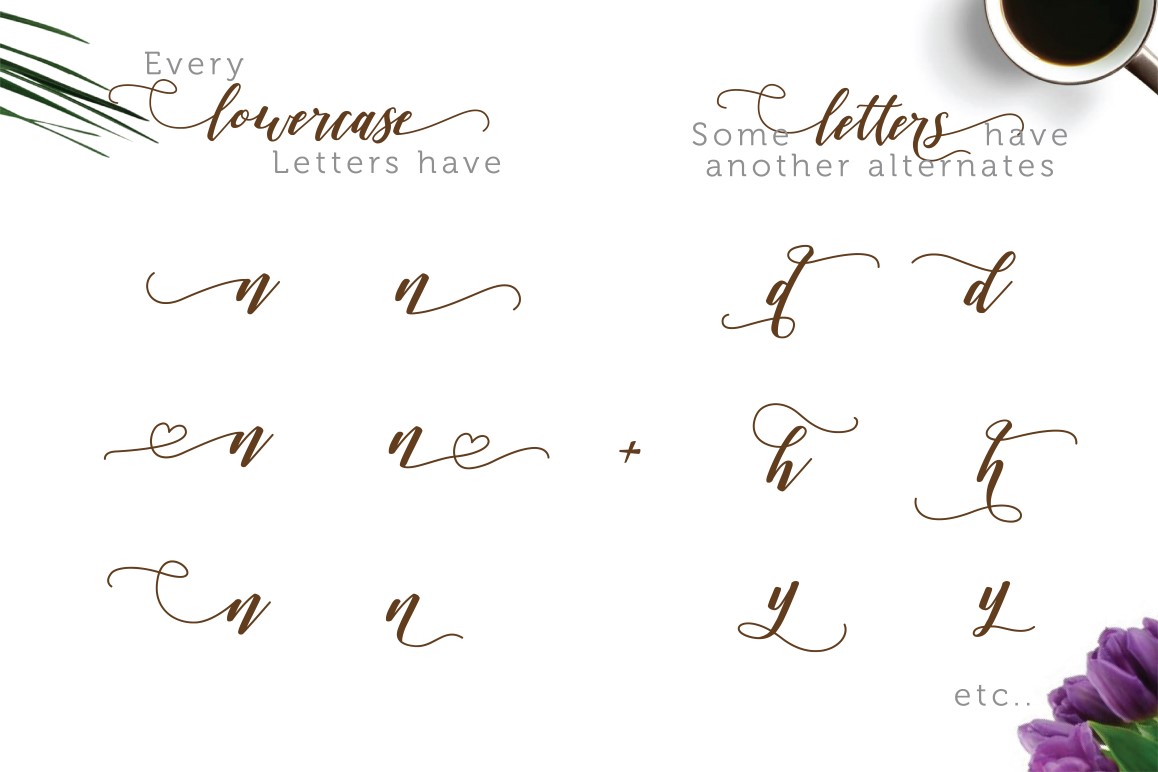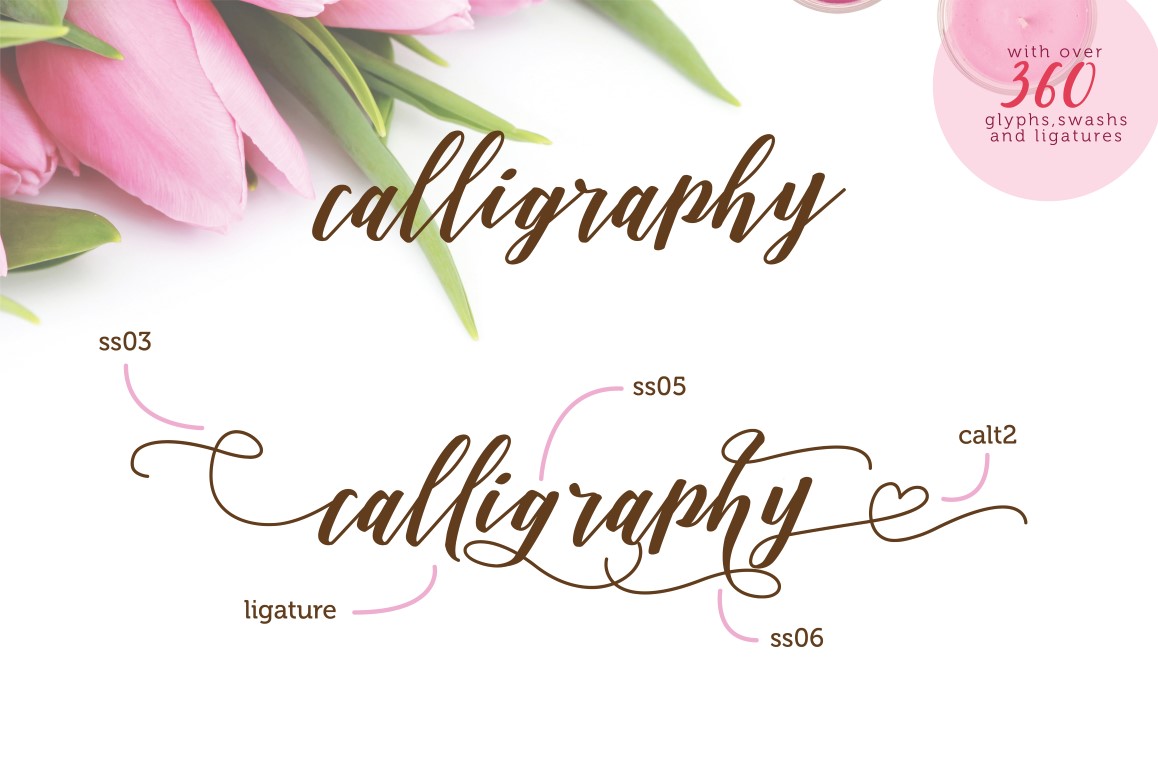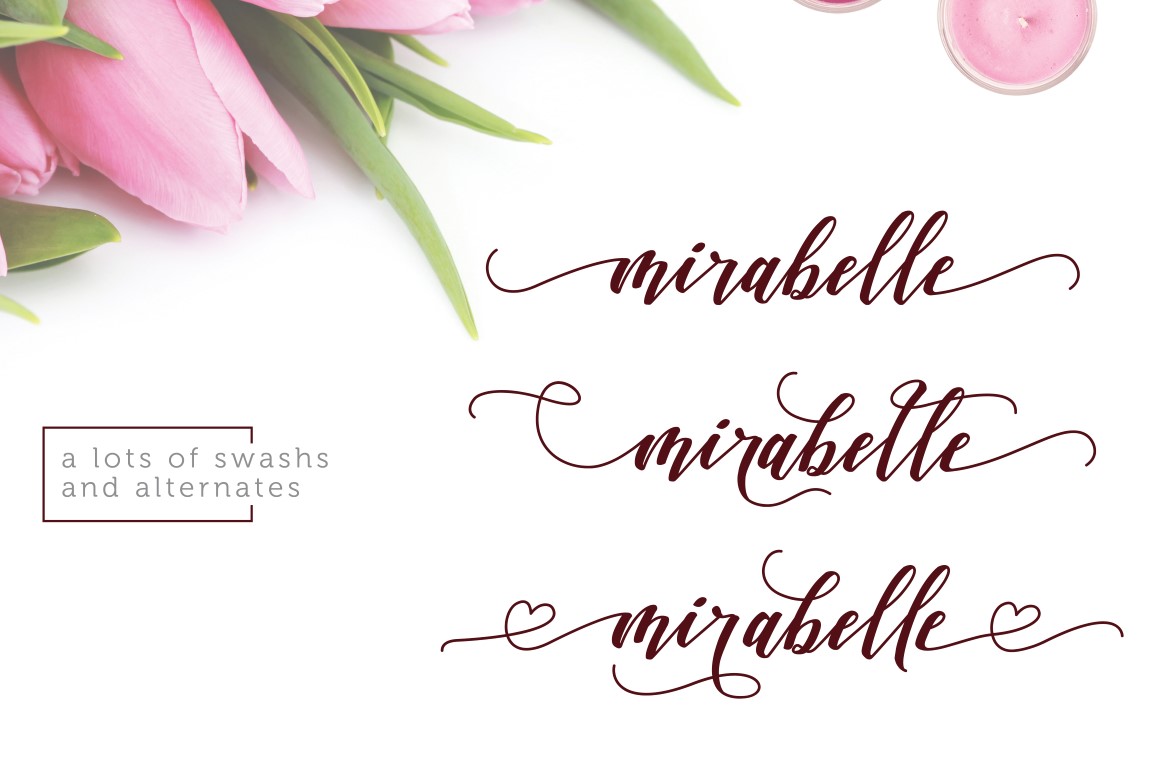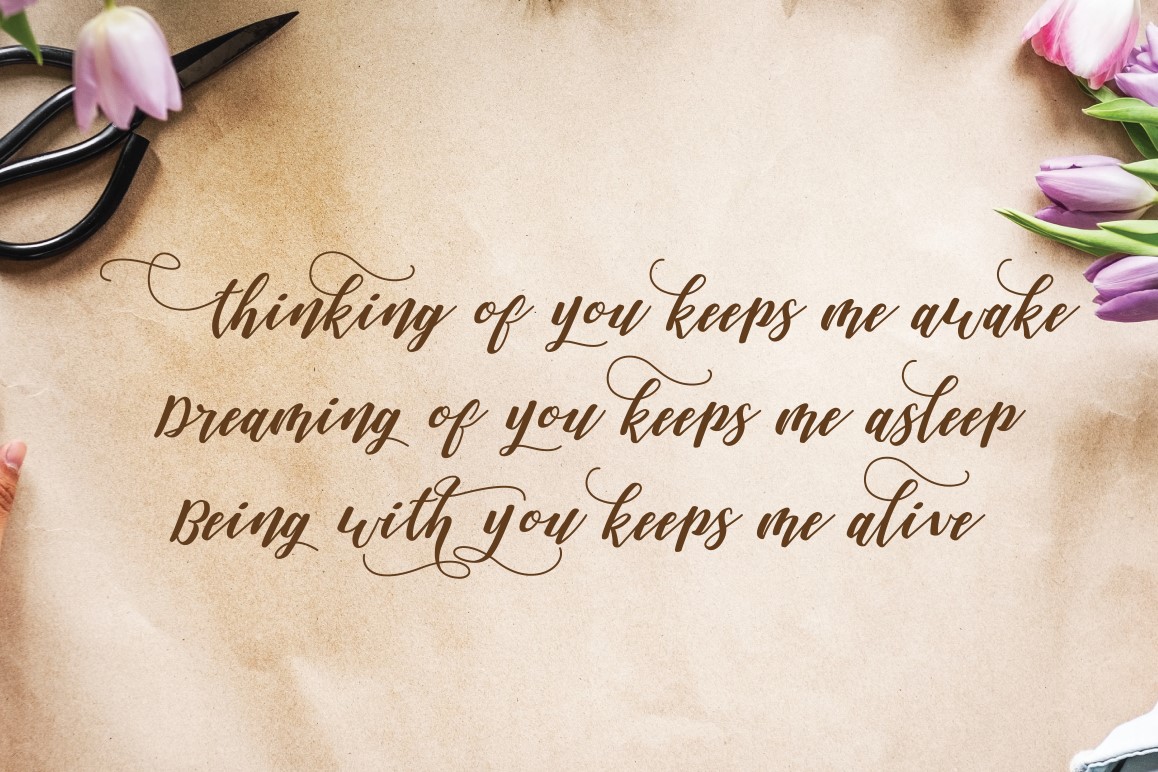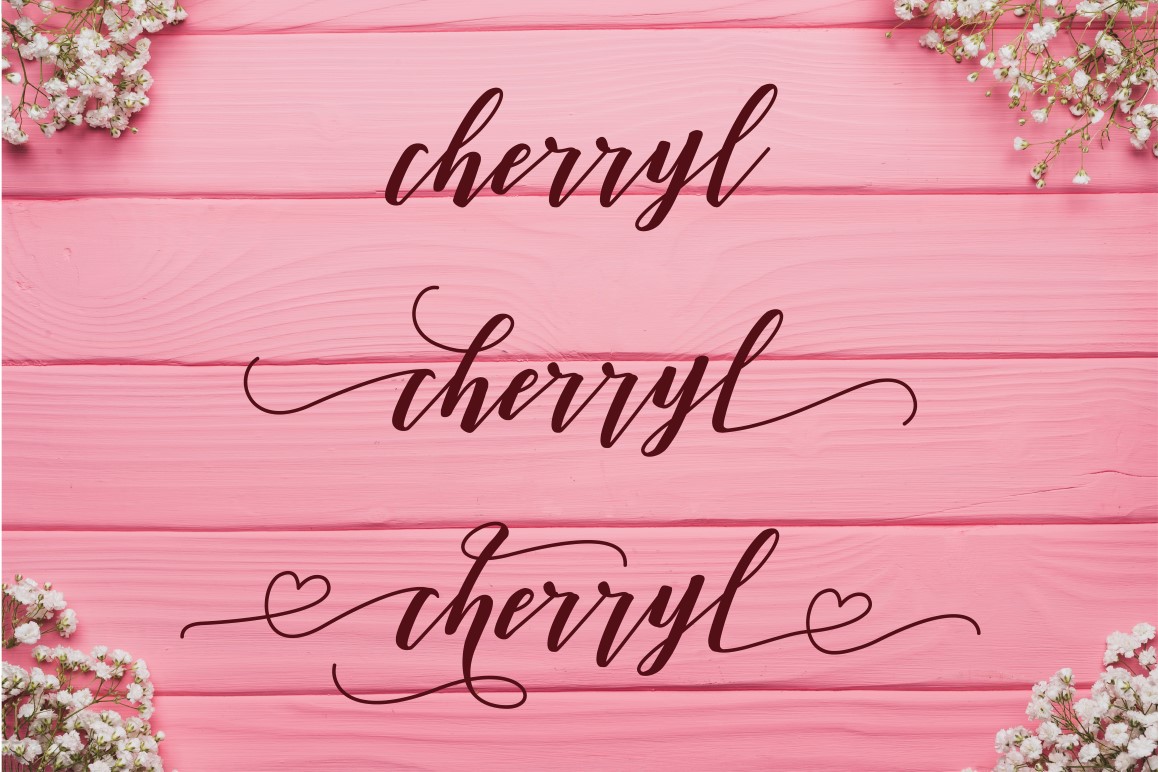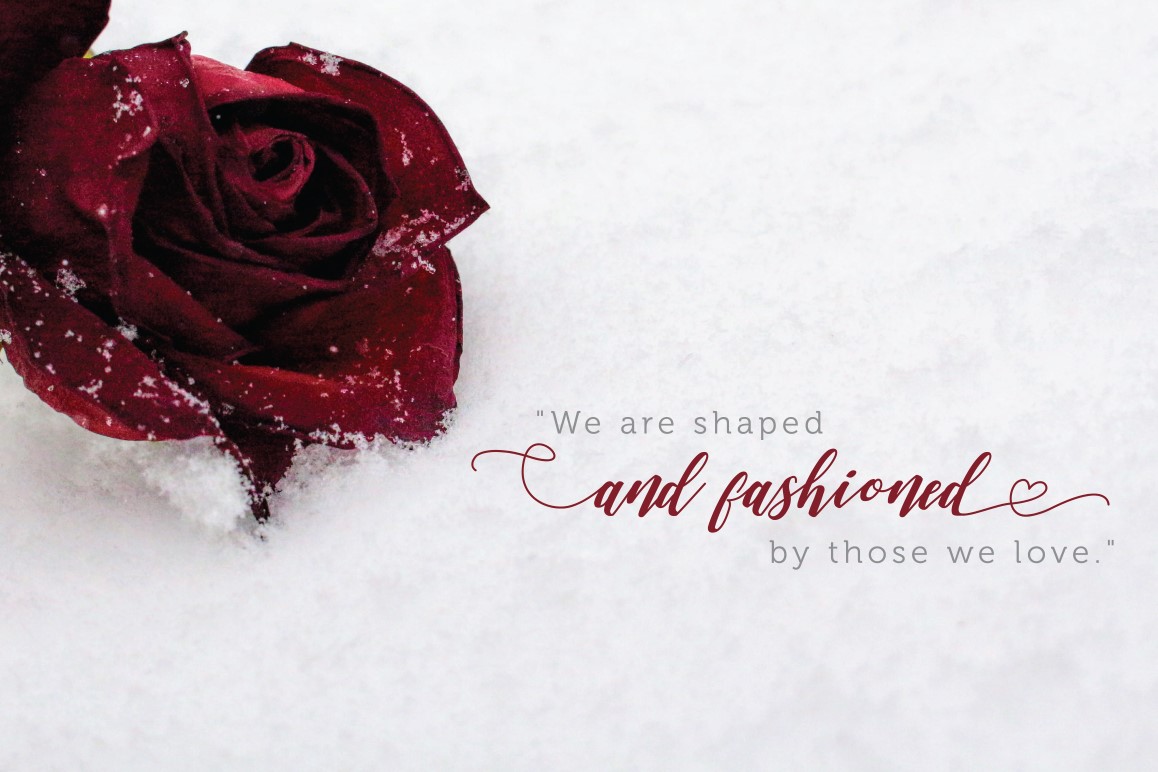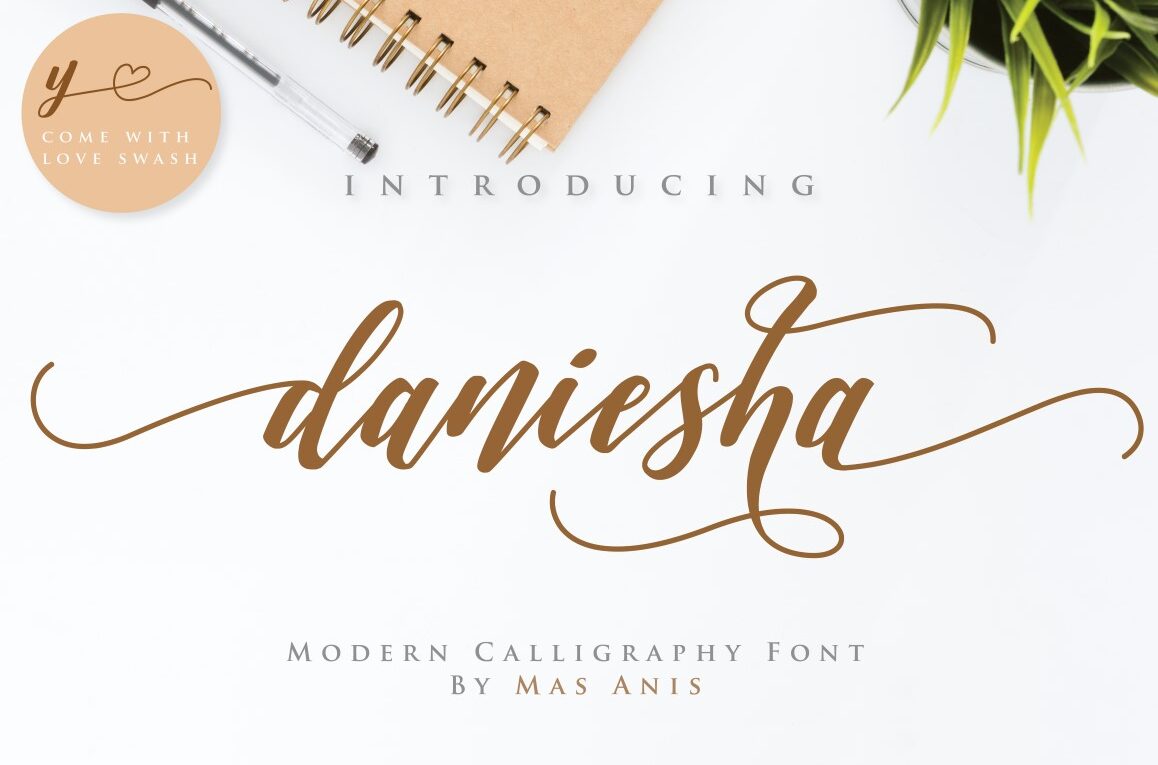
Daniesha Font: Elevate Your Designs with Elegant Calligraphy
Are you a designer or crafter looking for a beautiful and elegant font to add a touch of sophistication to your projects? Look no further than the Daniesha Font. This stunning calligraphy font is perfect for special occasion typesetting, or to be used as a headline to your designs. With its dancing quality and numerous character options, Daniesha is sure to become a favorite in your font collection.
What is Daniesha Font?
Daniesha is a beautiful calligraphy font that exudes elegance and sophistication. Its flowing lines and curves make it perfect for adding a touch of luxury to any design project. Whether you’re working on a wedding invitation, a branding project, or a craft tutorial, Daniesha is the perfect choice. This font is designed to give your text a sense of movement and fluidity, making it perfect for designs that require a touch of whimsy and romance.
Key Features of Daniesha Font
- Dancing Quality: Daniesha has a unique dancing quality that gives your text a sense of movement and fluidity. This makes it perfect for designs that require a touch of whimsy and romance.
- Multiple Character Options: Daniesha offers many different character options, making it easy to customize your text to fit your design needs.
- Calligraphy Style: Daniesha is a true calligraphy font, with flowing lines and curves that mimic the look of hand-written text.
- Perfect for Special Occasions: Daniesha is perfect for special occasion typesetting, including weddings, anniversaries, and other celebrations.
Uses for Daniesha Font
Daniesha is a versatile font that can be used in a variety of design projects. Here are just a few ideas to get you started:
- Wedding Invitations: Daniesha is perfect for wedding invitations, with its elegant and sophisticated style.
- Branding Projects: Daniesha can be used to add a touch of luxury to branding projects, including logos, business cards, and letterheads.
- Craft Tutorials: Daniesha is a great choice for craft tutorials, including knitting, sewing, and other handmade projects.
- Signage: Daniesha can be used for signage, including store signs, event signs, and directional signs.
Tips for Using Daniesha Font
Here are a few tips for using Daniesha font in your design projects:
- Use it Sparingly: Daniesha is a bold font, so use it sparingly to avoid overwhelming your design.
- Pair it with a Simple Font: Pair Daniesha with a simple font to create contrast and visual interest.
- Experiment with Colors: Daniesha looks great in a variety of colors, so experiment with different hues to find the one that works best for your design.
| Font Name | Daniesha Font |
| Author | Mas Anis |
Daniesha font is a beautiful and elegant calligraphy font that’s perfect for designers and crafters looking to add a touch of sophistication to their projects. With its dancing quality and numerous character options, Daniesha is sure to become a favorite in your font collection. Whether you’re working on a wedding invitation, a branding project, or a craft tutorial, Daniesha is the perfect choice.